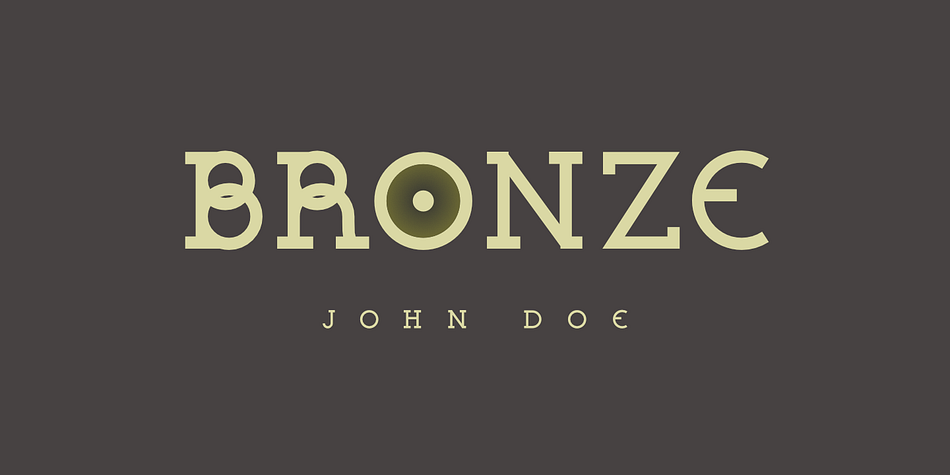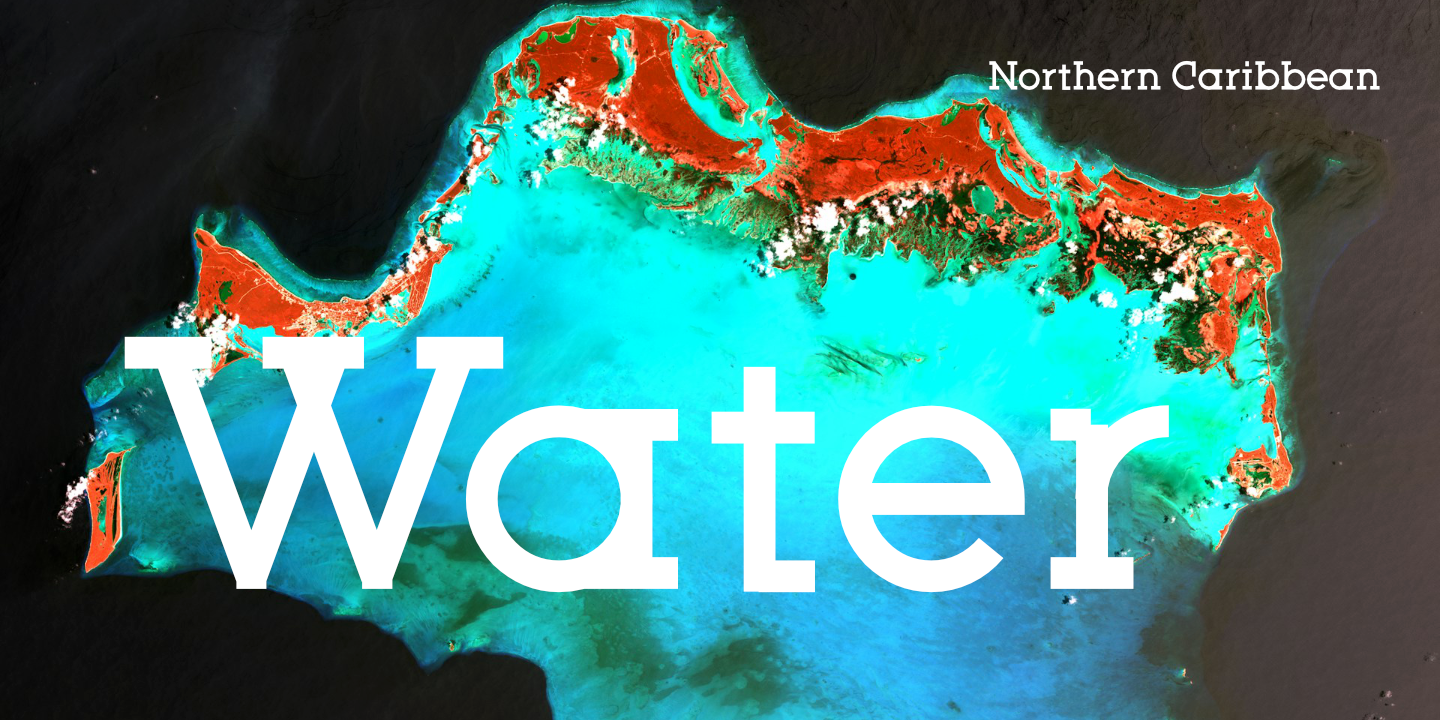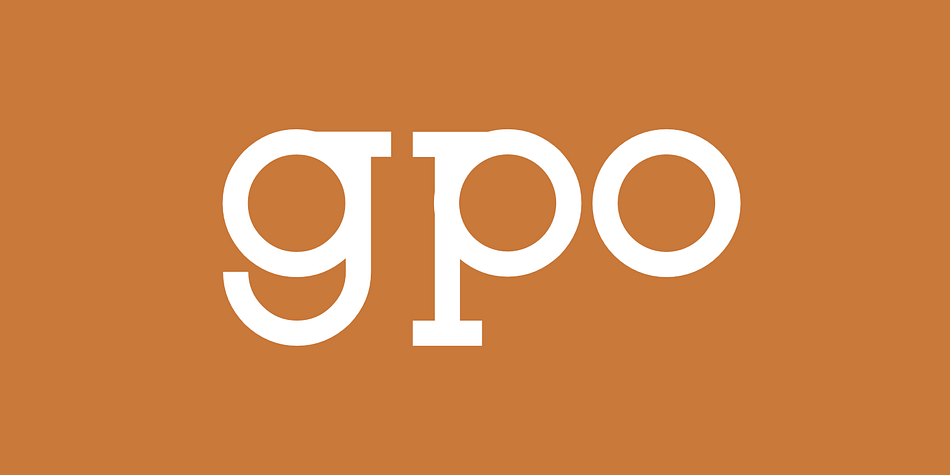
FR Grey
FR Grey is a slab serif font family published by ffeeaarr.
This font carries the weight of countless stories, its letterforms etched with the urgency of a breaking headline. It speaks with a voice both authoritative and approachable, inviting you to lean in and absorb the knowledge it conveys.